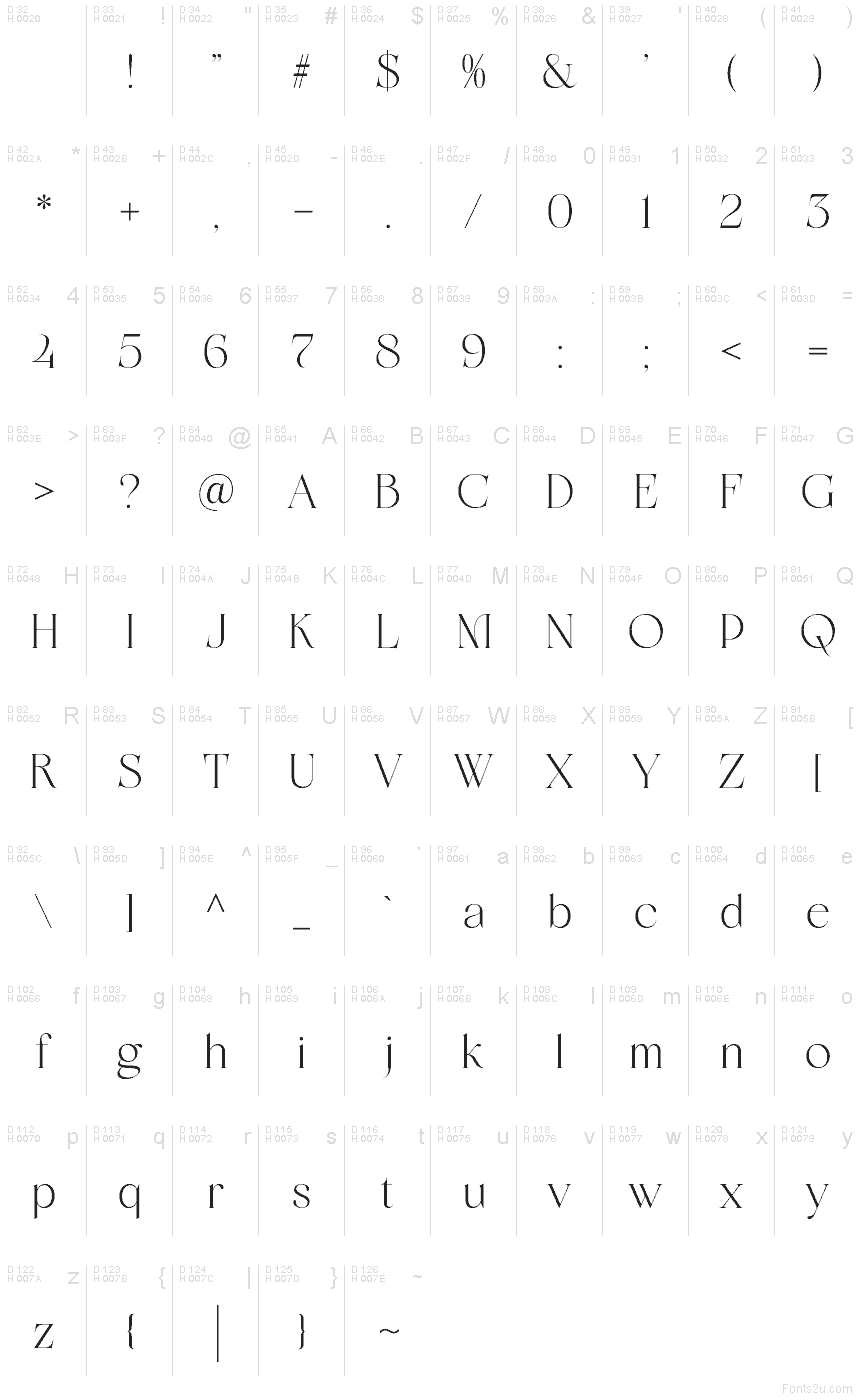
Meravila Regular
Meravila font by Sign Studio combines elegance and sophistication with modern serif features. Its high contrast, refined curves, and luxurious feel make it a standout choice for discerning designers. This free serif font embodies both classic and contemporary elements, offering a versatile option for various projects.
Meravila font family by Sign Studio